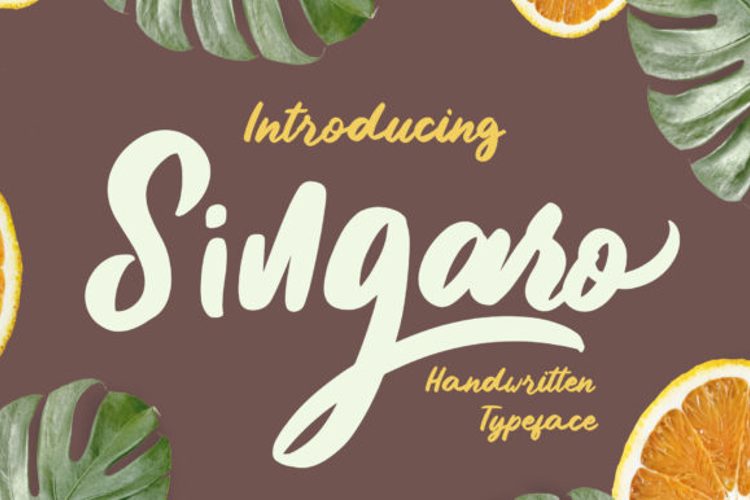
Singaro Font
Singaro is a sweet and brushed handwritten font. Dainty and joyful, this font will be ideal for writing wedding invitations, cards, or any other design that may need a romantic, personalized touch!